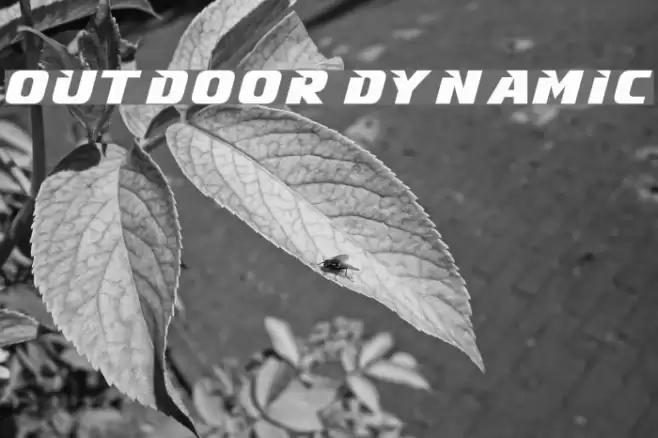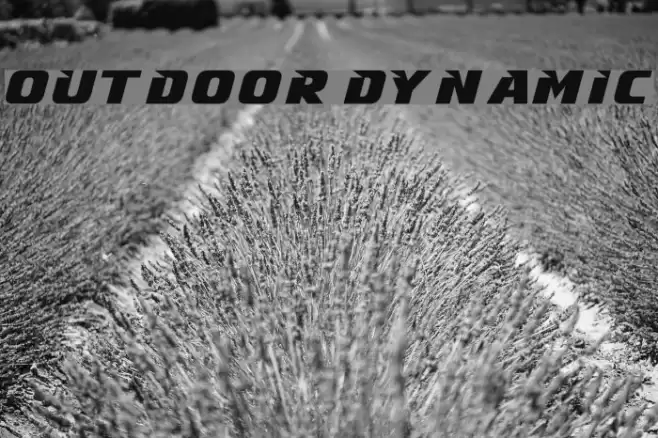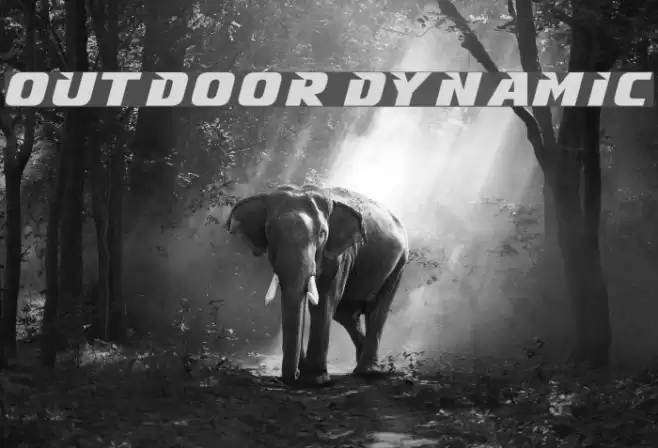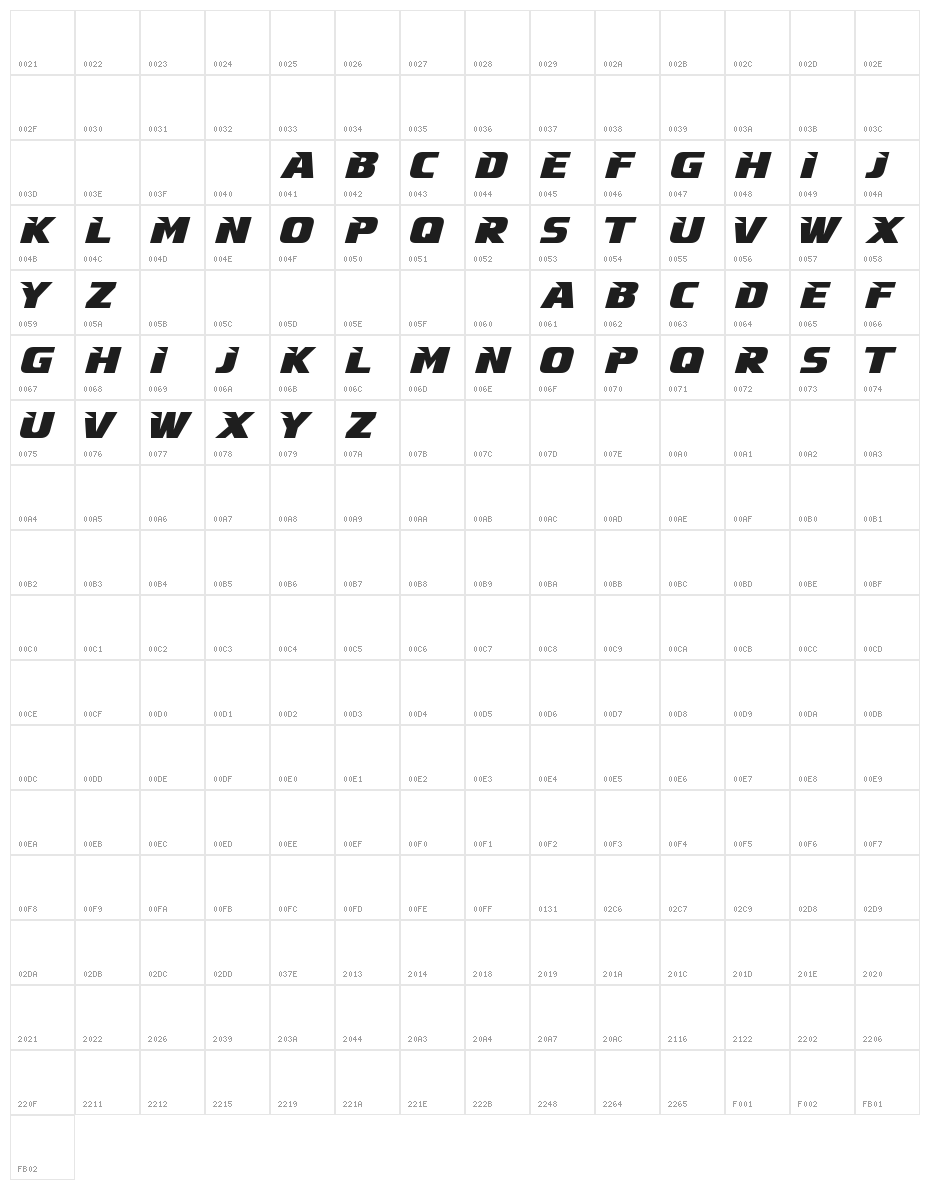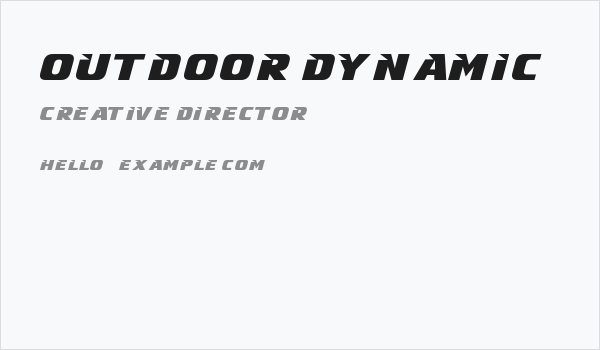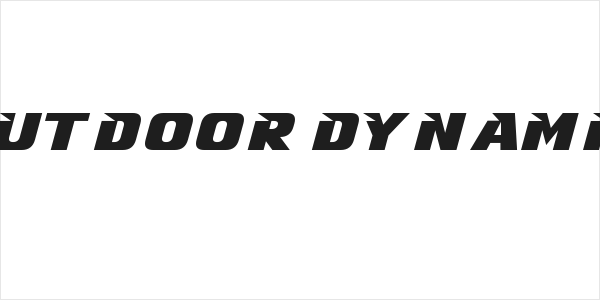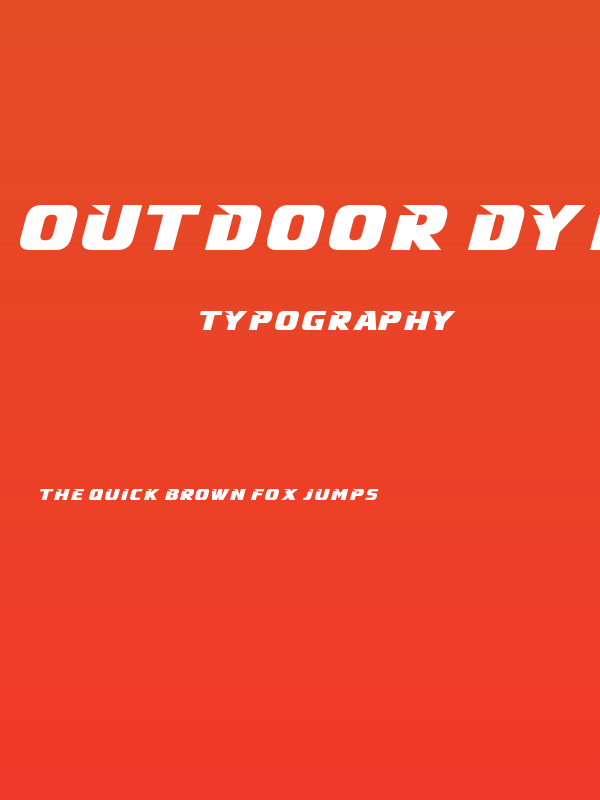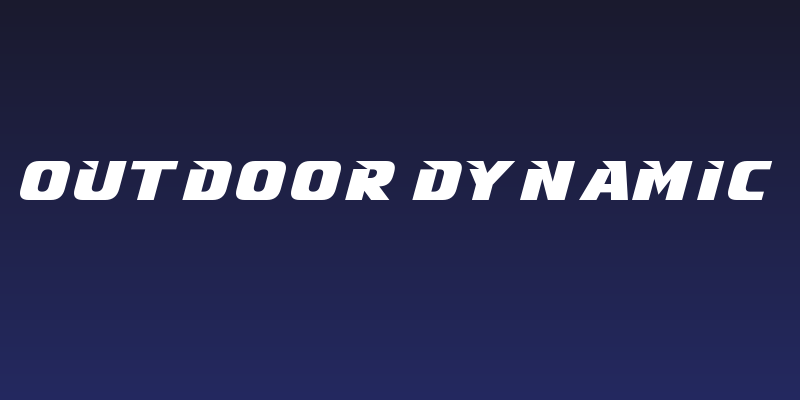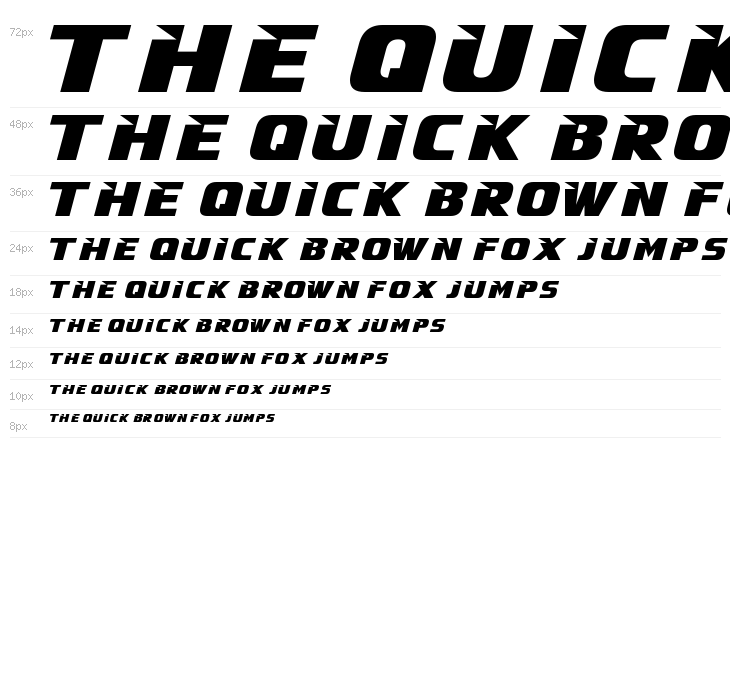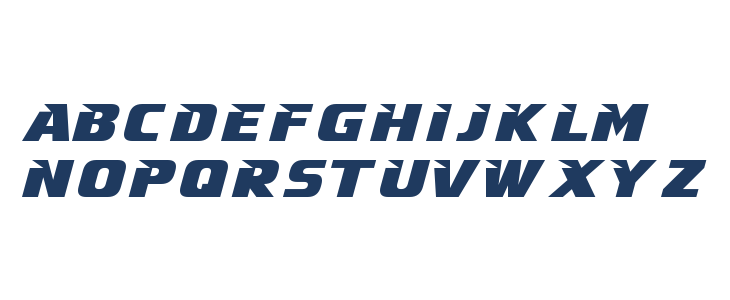
Outdoor Dynamic Font
Outdoor Dynamic Description
This font exudes a bold and dynamic presence, characterized by its strong, angular lines and a sense of movement. The letters are slightly italicized, giving them a forward-leaning posture that suggests speed and agility. The strokes are thick and consistent, providing a robust and impactful appearance. The design features sharp edges and pointed terminals, enhancing its aggressive and modern aesthetic. This font is well-suited for projects that require a sense of energy and action, such as sports branding, automotive advertising, or dynamic event promotions.
A bold, angular font with a dynamic, forward-leaning style from Uncategorized fonts.
- Proposed Projects: Ideal for sports branding, automotive advertising, dynamic event promotions, and action-oriented designs.